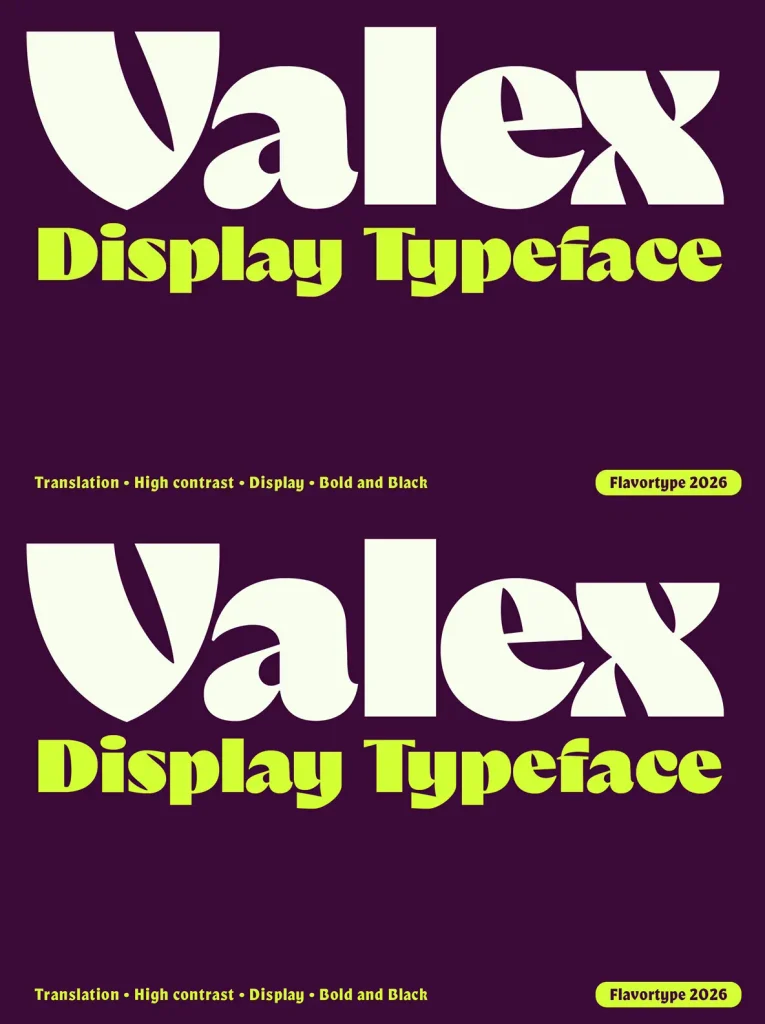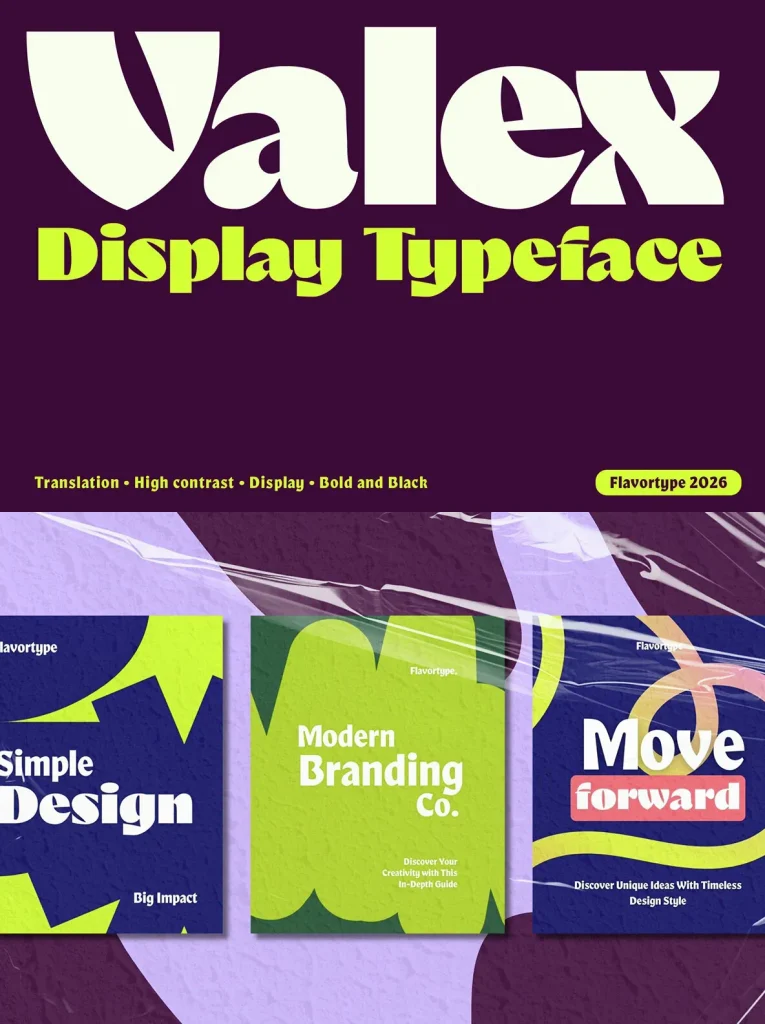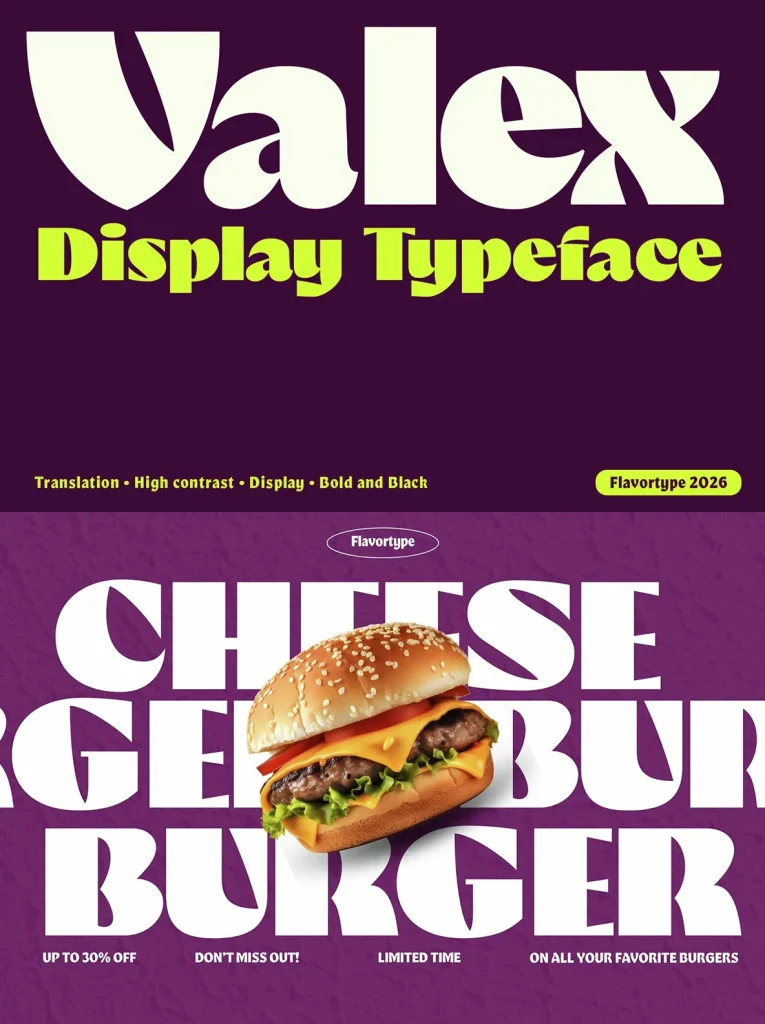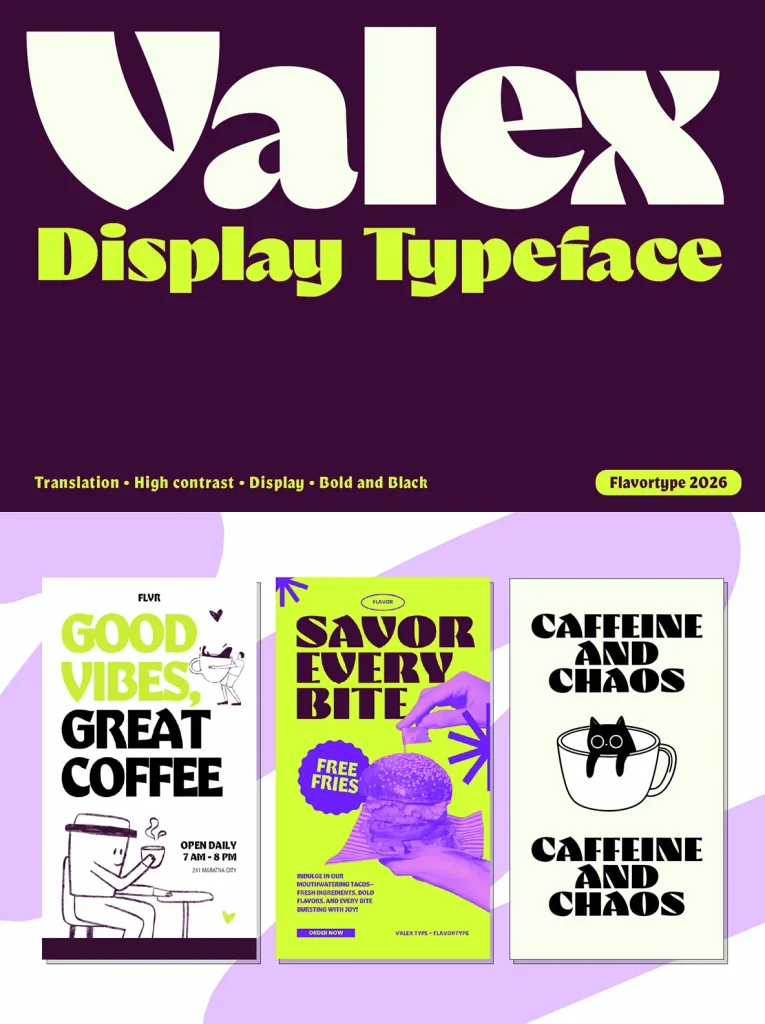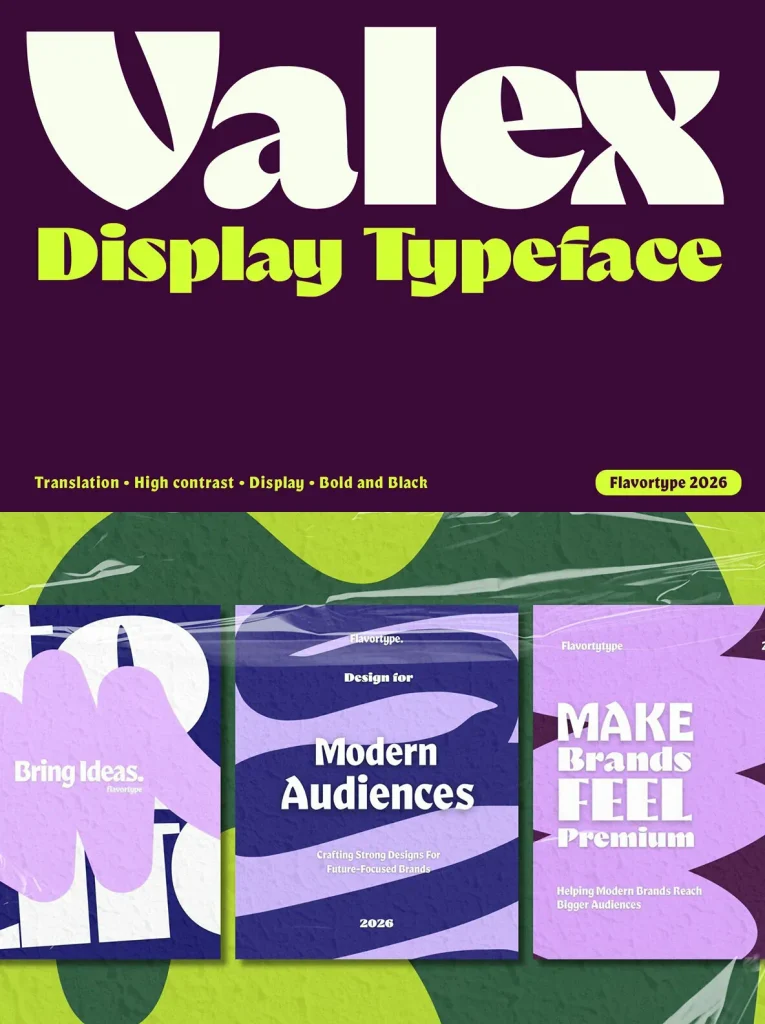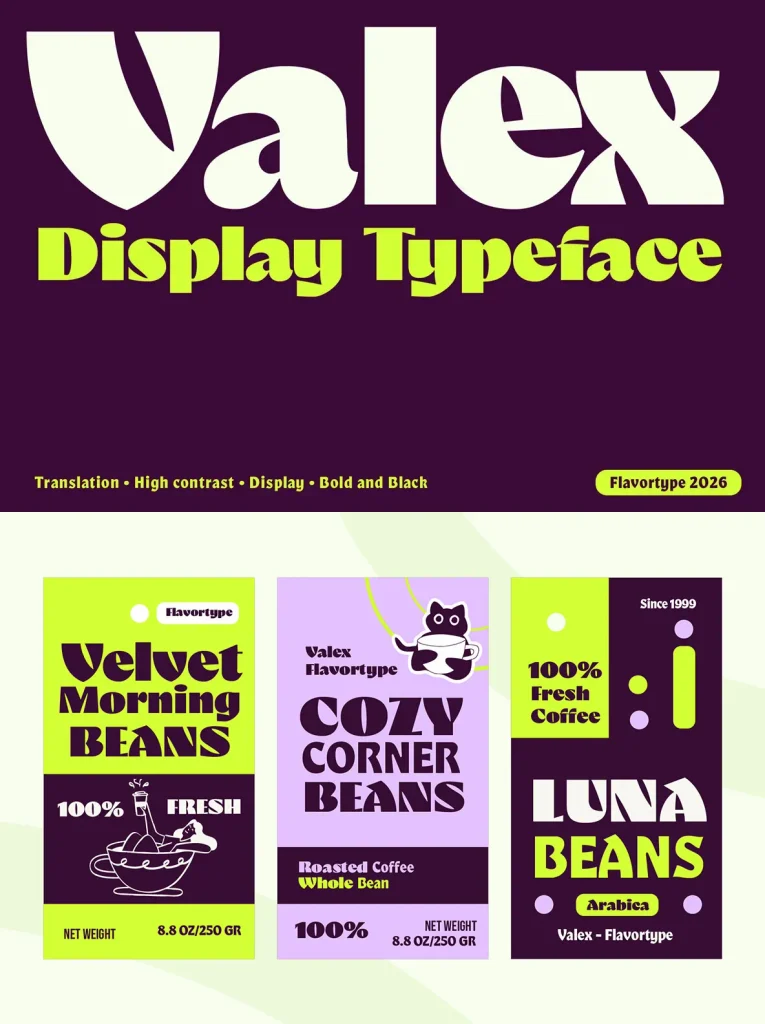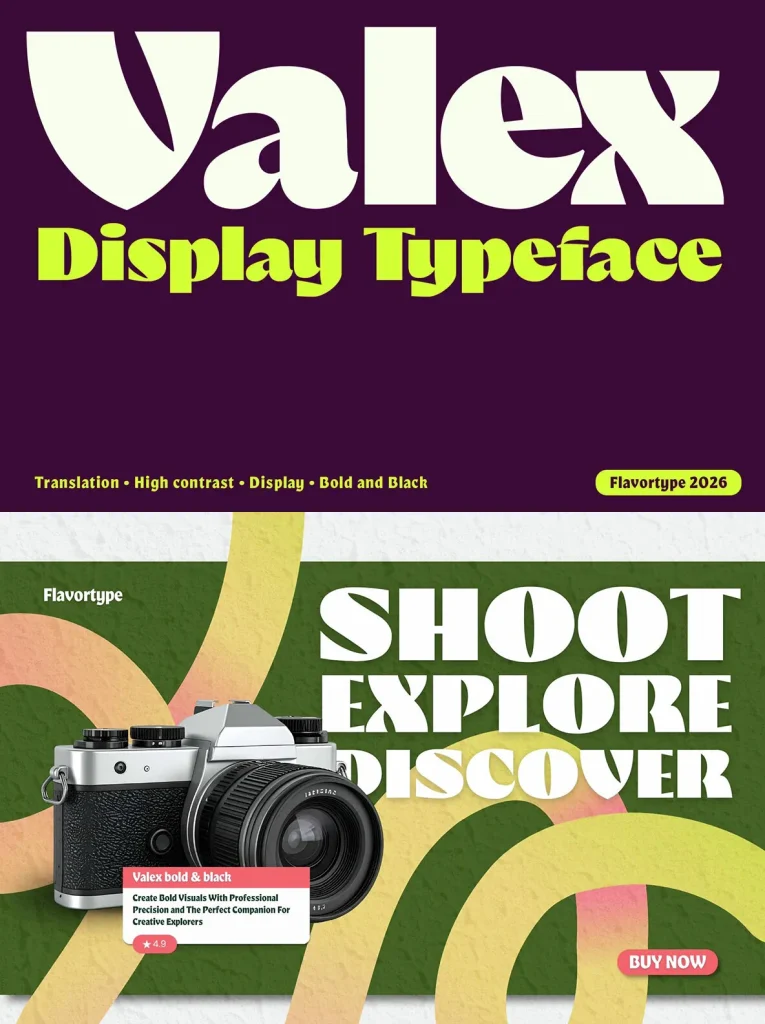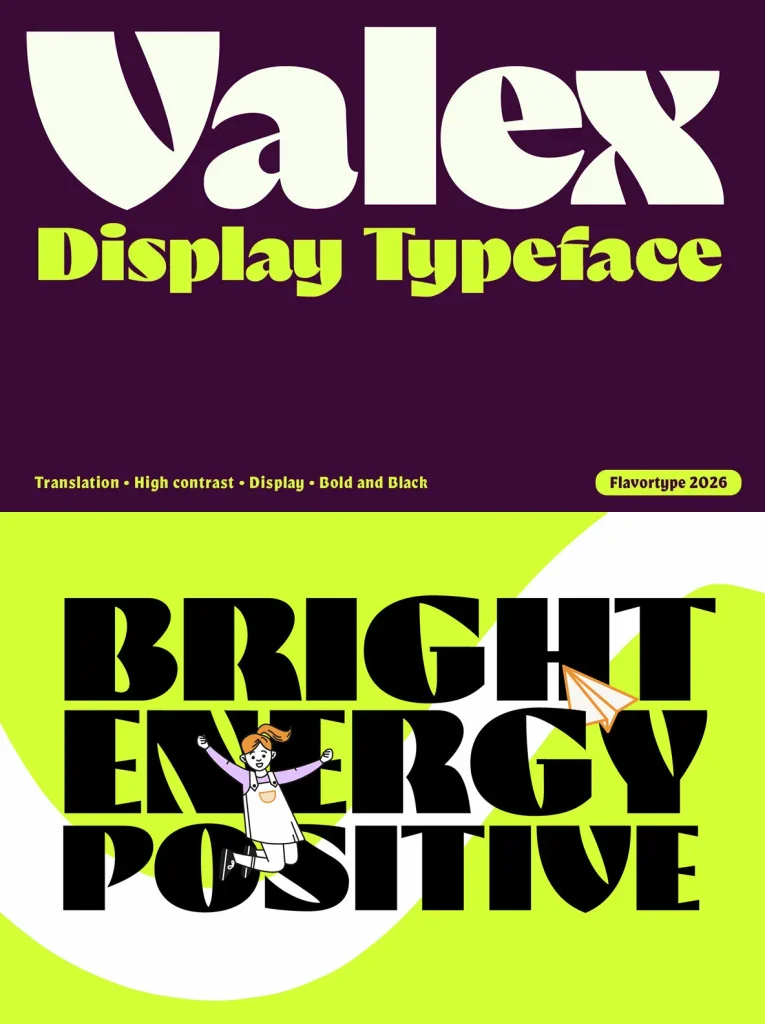
Valex Font
Valex — Retro Display With Bite
Valex is a playful, retro display typeface with strong personality. Its contrasting forms, rounded shapes, sharp counters, and chunky outlines give it a look that feels modern, nostalgic, and full of spirit. Designed for visual work that needs to be noticed, Valex suits branding, packaging, poster designs, social media graphics, editorial work, and more.
The font family includes 2 weight options: Valex Black and Valex Bold. These styles help you build hierarchy within a project without compromising the font’s expressive nature. Use Valex when you want your coffee brand, kids merchandise, or food packaging to stand out with a bold and memorable display font.
Works Great For
Branding
Packaging
Posters
Headings
Logos
Social media posts
Editorial work
Merchandise
Toys and children’s product packaging
Food branding